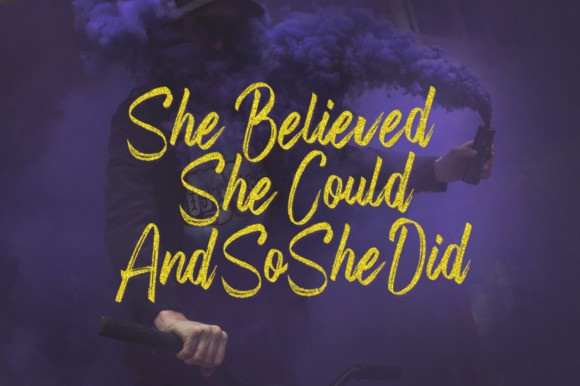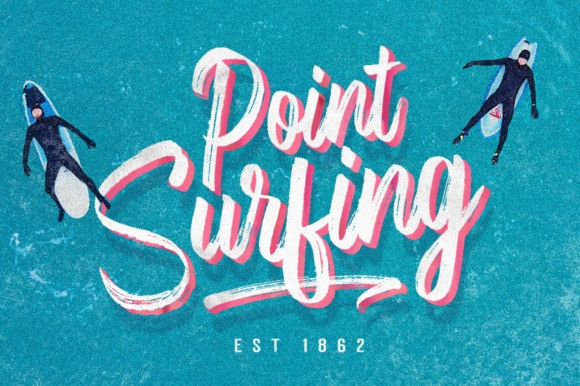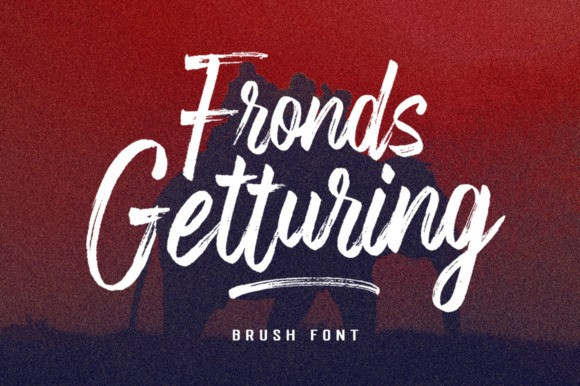
Fronds Getturing Typeface
Fronds Getturing Font is textured brush font. It was handmade and has an irregular baseline. Suitable for use in title designs or quotes, apparel, invitations, stationery, greeting cards, branding, logos, t-shirt, packaging, posters and more.